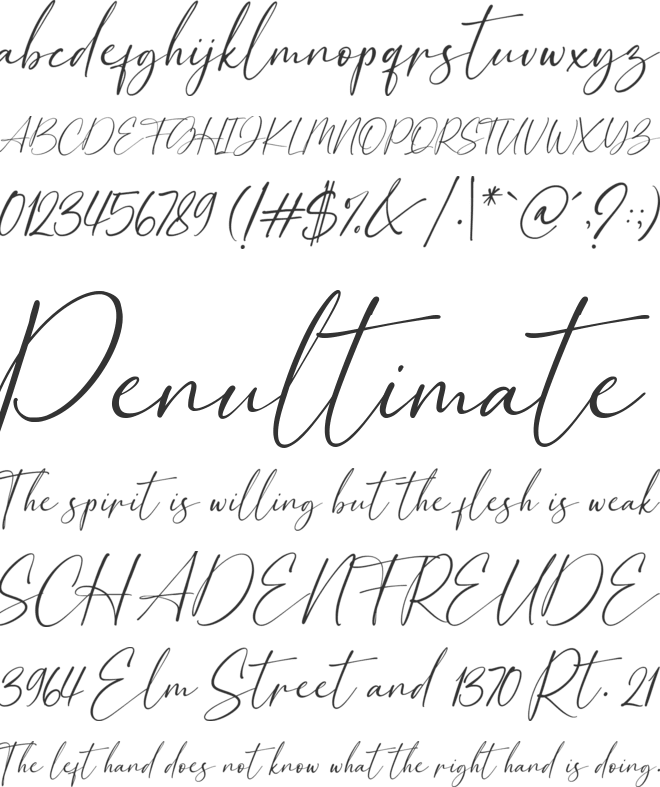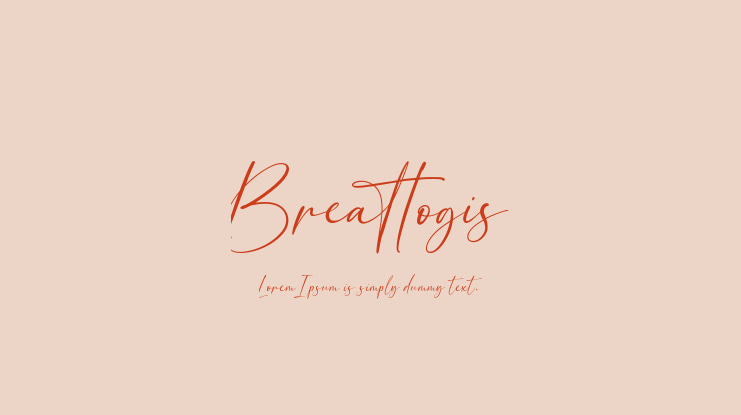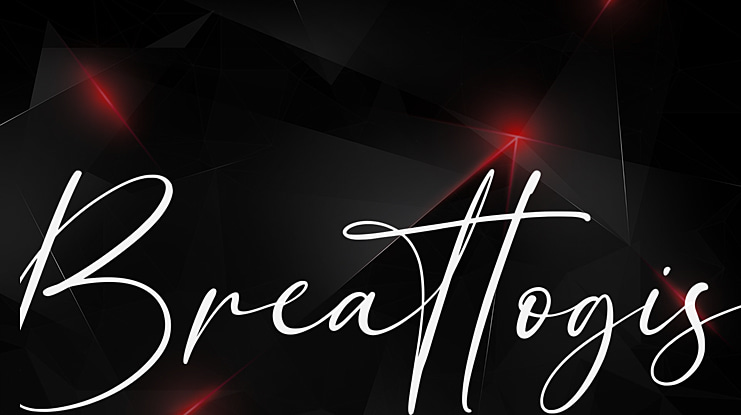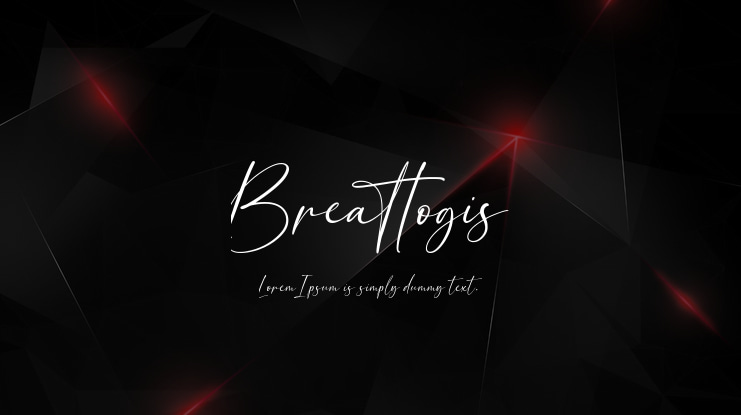
Breattogis Script Font. Made from natural pen.
it will make your design project more beautiful.
The font is suitable for any design like branding, logo, tagline, fashion,
print template, quotes, wedding and etc.